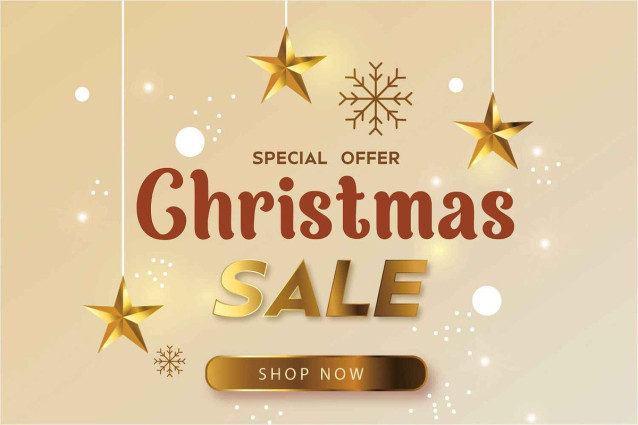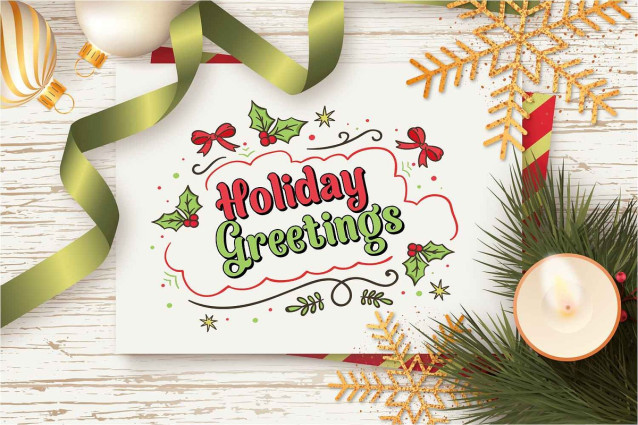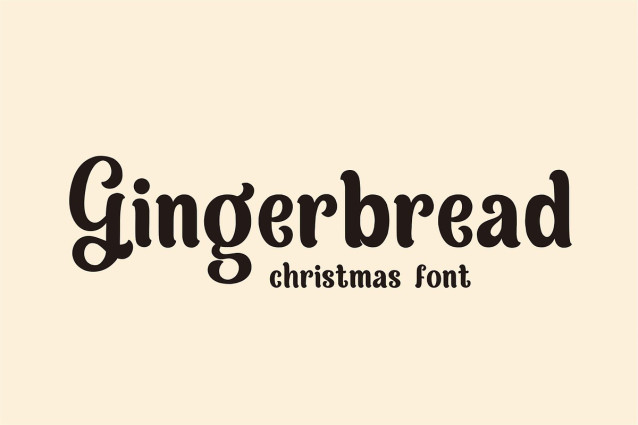
Gingerbread Font
Gingerbread Font is an authentic display font with a delightful and playful vibe. Perfectly crafted for a wide range of creative projects, this font brings a touch of whimsy and charm to any design. Whether you’re working on branding, logo design, t-shirt printing, or even food-related projects, Gingerbread stands out beautifully in every context.
This versatile font is particularly well-suited for kid-themed designs, food packaging, and fun, light-hearted branding projects. Its unique character and style make it an excellent choice for creating eye-catching visuals that resonate with audiences of all ages.
Gingerbread’s bold and engaging design ensures it makes a memorable impact, no matter where it’s used. Whether it’s for playful logos, festive apparel, or vibrant packaging, this font will add a delightful touch to your creations.
Embrace the charm and versatility of Gingerbread and watch it bring your designs to life. With its distinctive look and broad appeal, this font is the perfect addition to any creative toolkit.